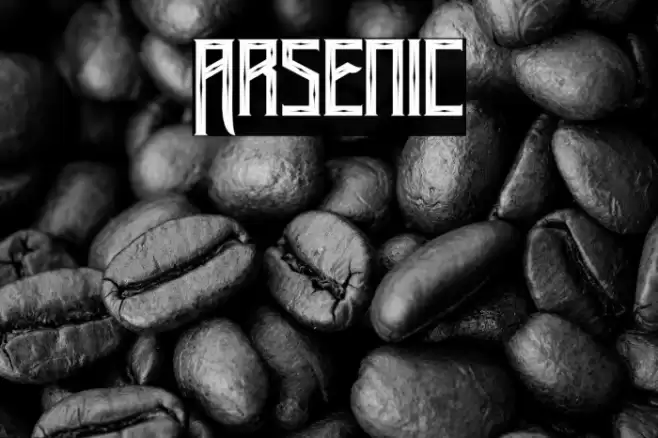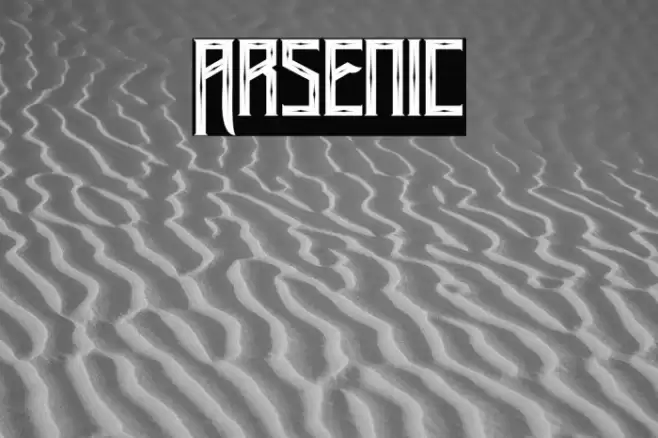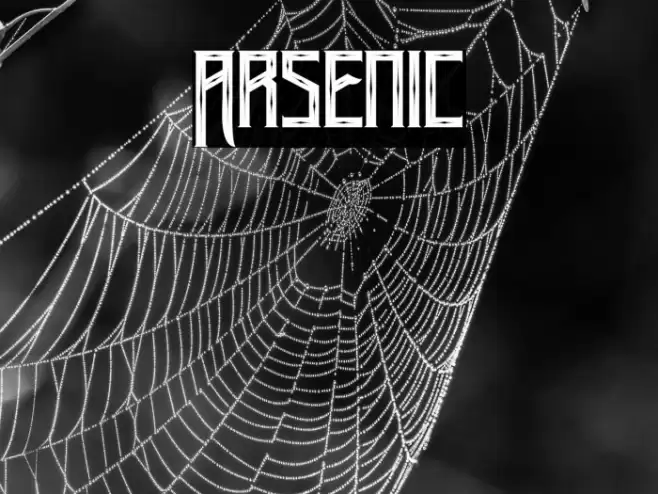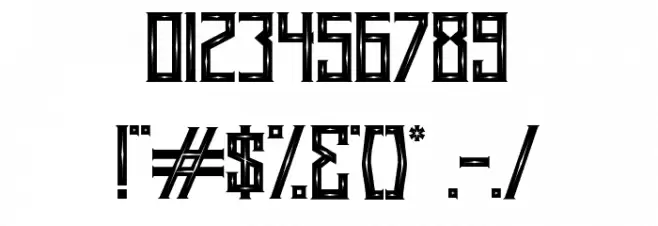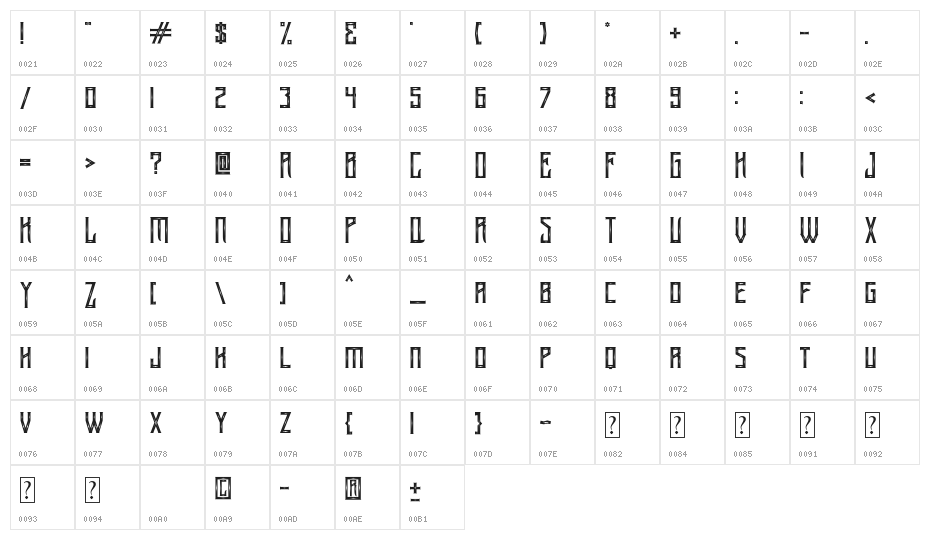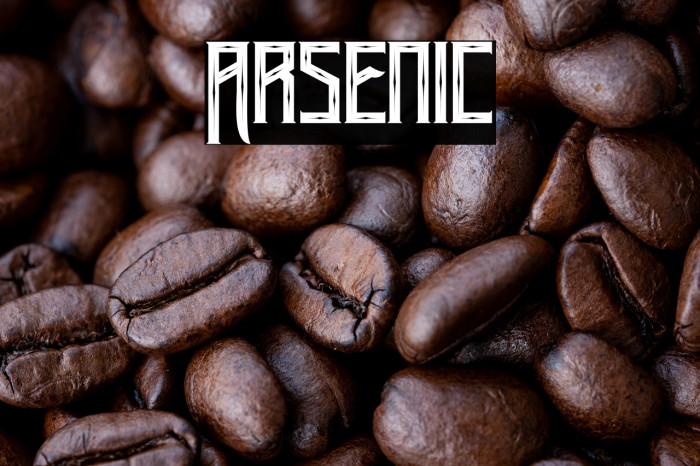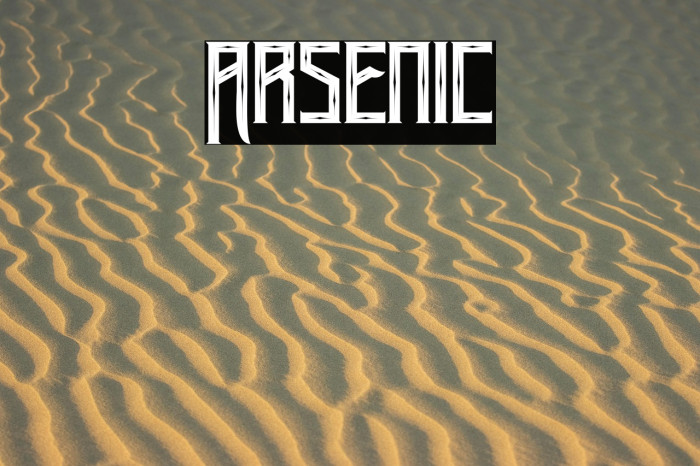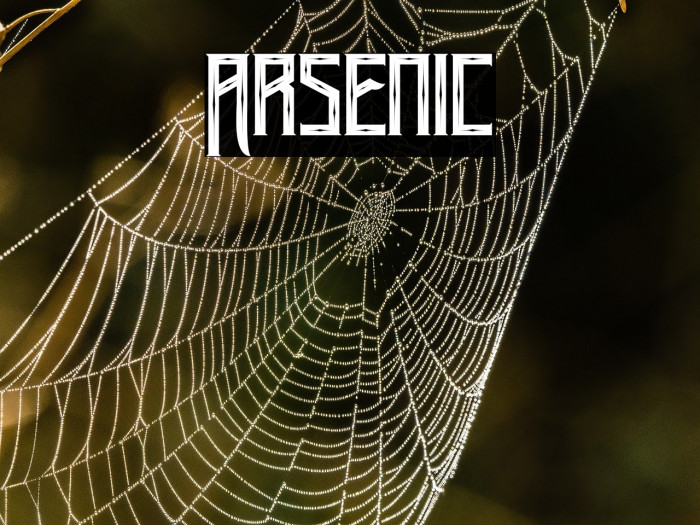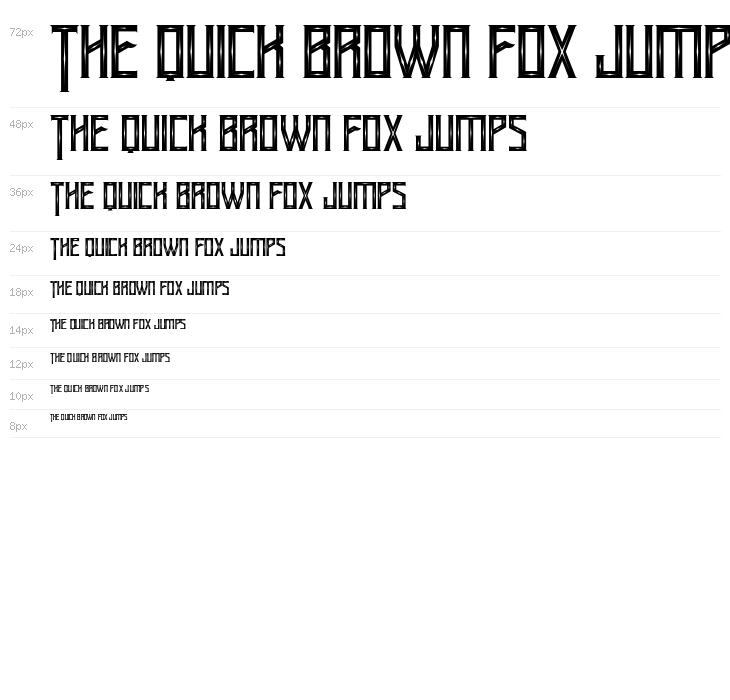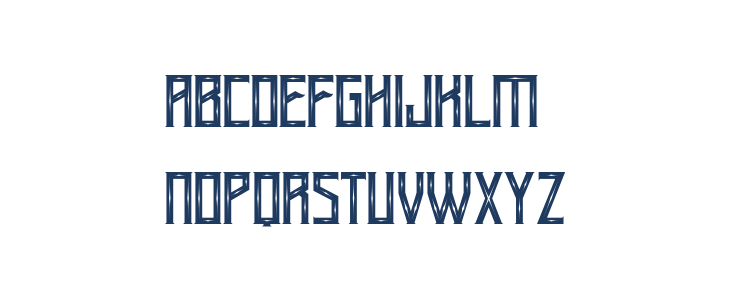
Arsenic Font
Arsenic Description
This font features a bold and striking design with a geometric and angular style. The characters are constructed with thick lines and sharp edges, creating a modern and industrial look. The uppercase and lowercase letters maintain a consistent height, contributing to a uniform appearance. Numbers and special characters follow the same design principles, ensuring a cohesive visual identity. The font's unique style makes it suitable for attention-grabbing headlines and titles, where a strong visual impact is desired.
A bold, geometric font with angular lines and a modern industrial style from Regular fonts.
- Proposed Projects: Ideal for branding, posters, album covers, and any project requiring a bold, modern aesthetic.